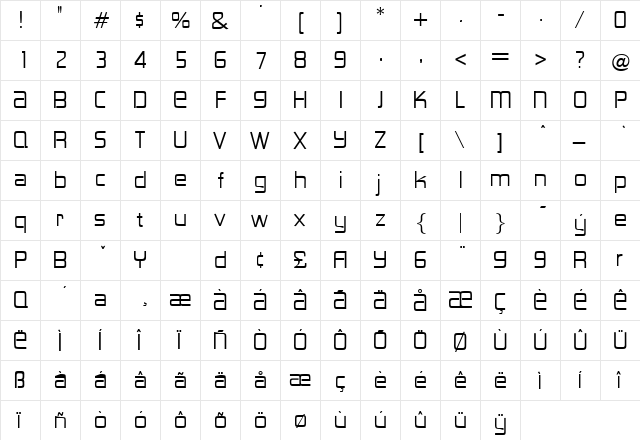
Lancester Regular
Design Context for Lancester Typeface
Lancester takes a measured approach to typography — its balanced proportions and neutral character make it a reliable workhorse for both digital and print work.